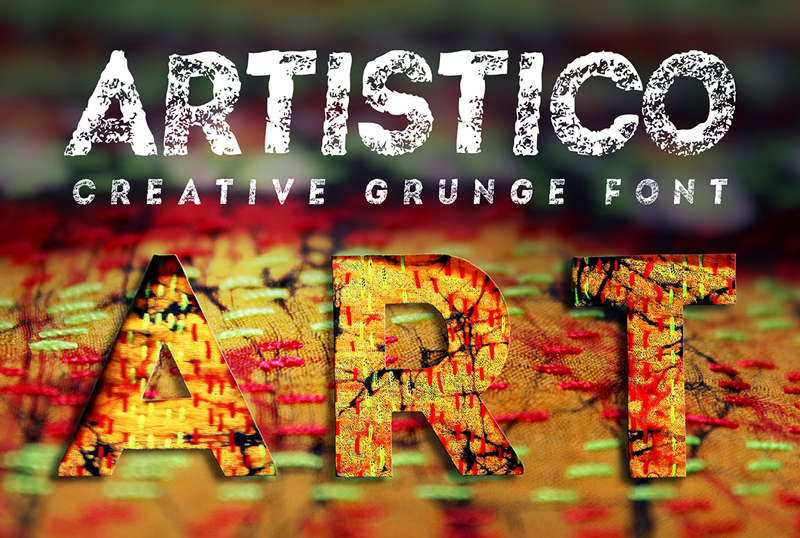
Preview and download Artistico Font. Created by Peter Olexa in Fancy Destroy styles with 100% Free license.
| Font name: | Artistico |
| Author: | Peter Olexa |
| Note by Peter Olexa | |